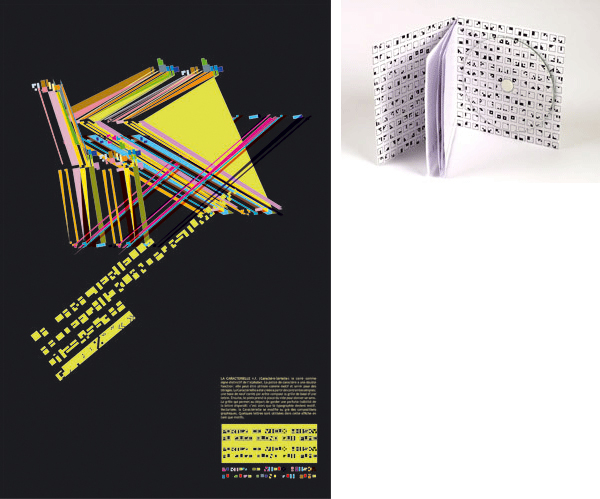
On the picture you can see the presentation poster and the typographic kit. The font is typographic forms which you can read between the ligns or just play for graphic and abstract background! |